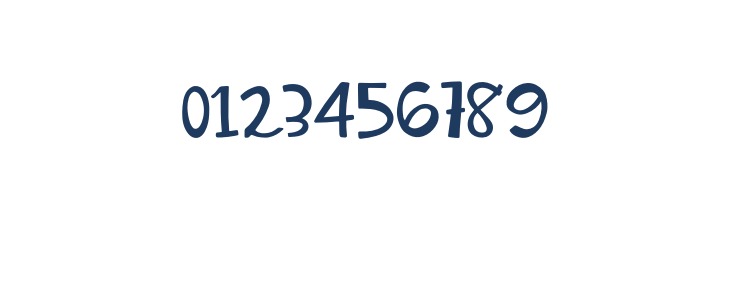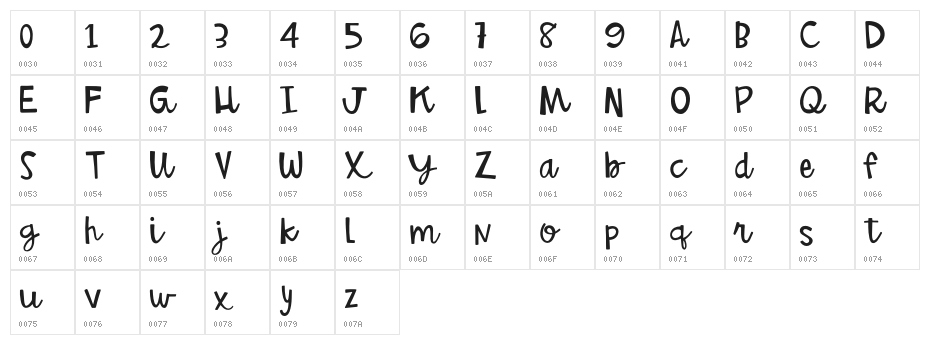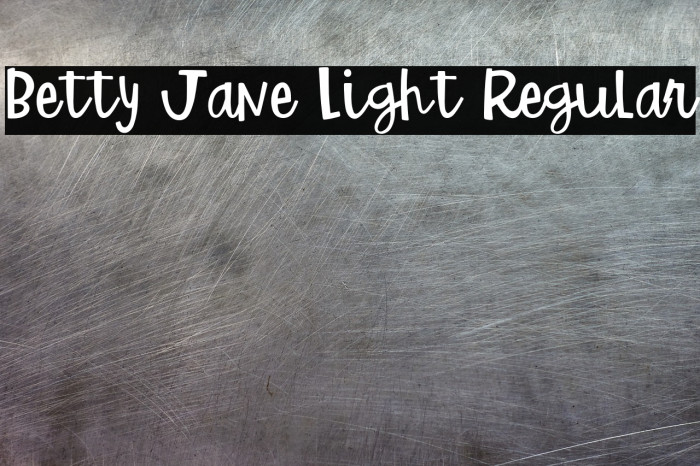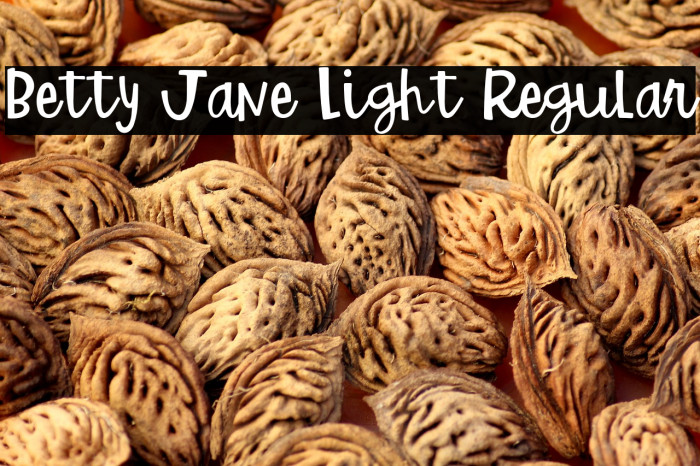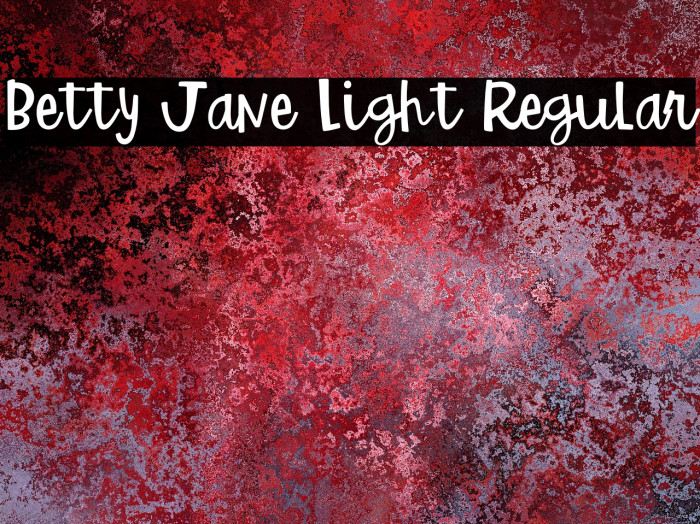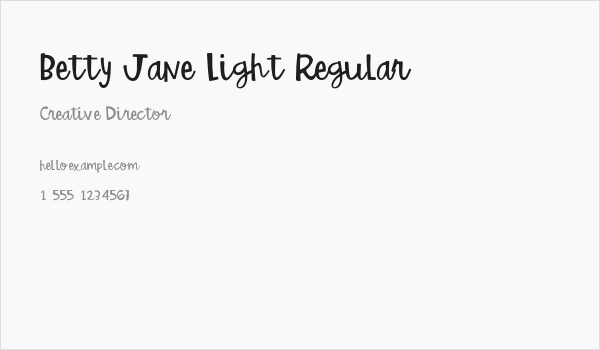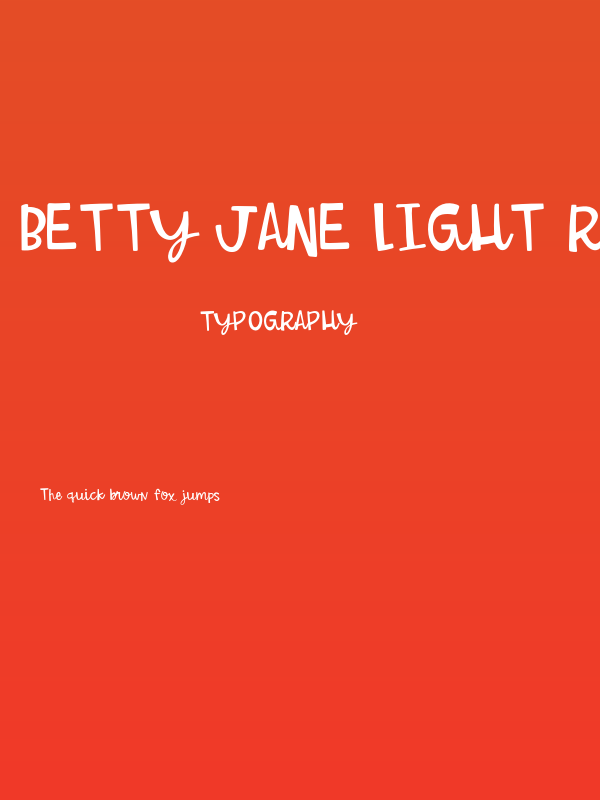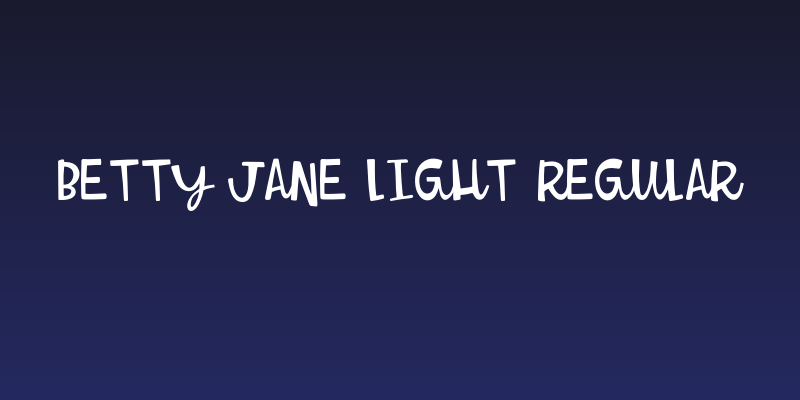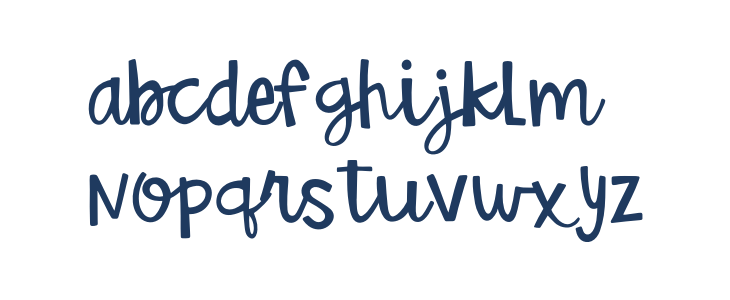
Betty Jane Light Regular Font
Betty Jane Light Regular Description
This font features a playful and casual handwritten style, characterized by its smooth, flowing curves and slightly irregular letterforms. The uppercase letters are bold and prominent, while the lowercase letters maintain a consistent flow, adding a touch of whimsy. The numbers are rounded and easy to read, complementing the overall friendly appearance. The special characters are integrated seamlessly, maintaining the font's cohesive look. This font's informal and approachable style makes it suitable for a variety of creative projects.